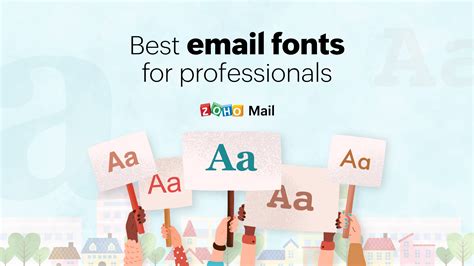
Email Typography 5 Best Fonts for Writing Sleek and Professional
Font For Emails. Web 10 best fonts for email design 1. Arial is a sans serif font that is widely used both in print and digital media.
Web 10 best fonts for email design 1. Arial is a sans serif font that is widely used both in print and digital media.
Arial is a sans serif font that is widely used both in print and digital media. Arial is a sans serif font that is widely used both in print and digital media. Web 10 best fonts for email design 1.